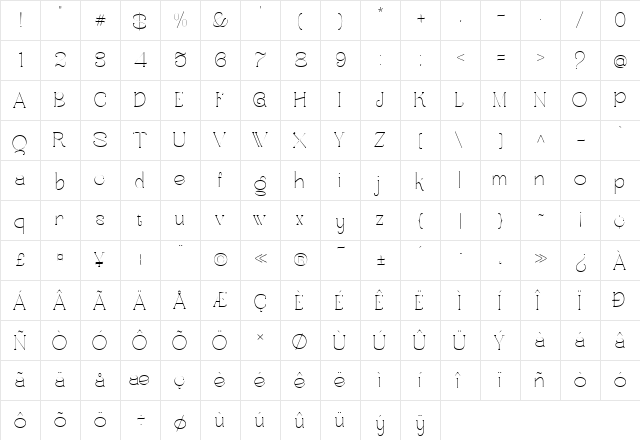
WanoQuin-Thin Free PU Thin
Design Context for WanoQuin-Thin Free PU Typeface
WanoQuin-Thin Free PU is a composed and adaptable typeface that performs quietly and consistently across a wide range of design contexts. The delicate stroke weight brings airiness and refinement to layouts.